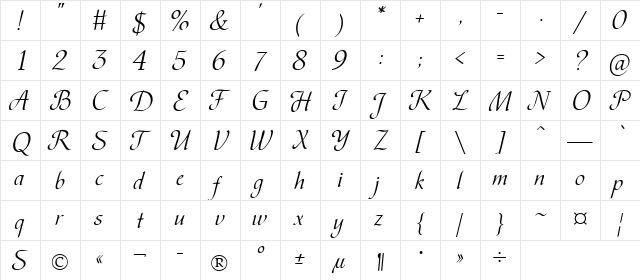
Vesna Regular Font Preview
Vesna Regular
Vesna Regular Font Details
| Foundry | ParaType Inc |
Design Context for Vesna Typeface
Vesna is a composed and adaptable typeface that performs quietly and consistently across a wide range of design contexts.